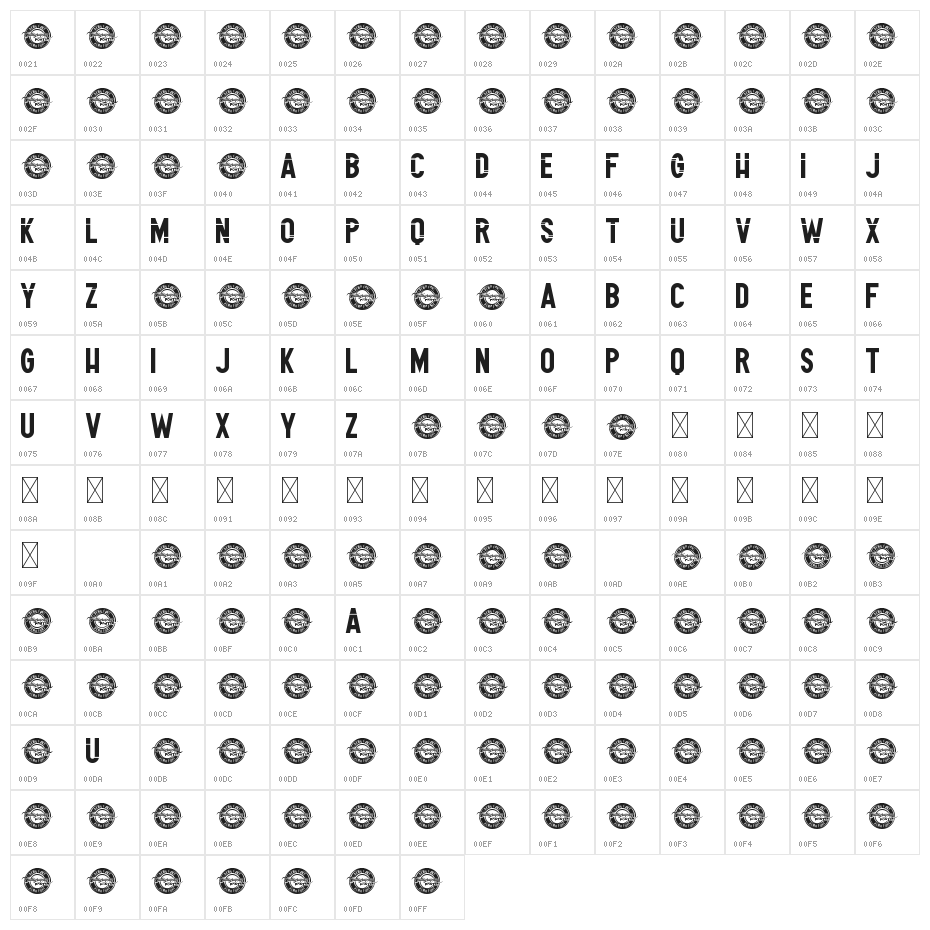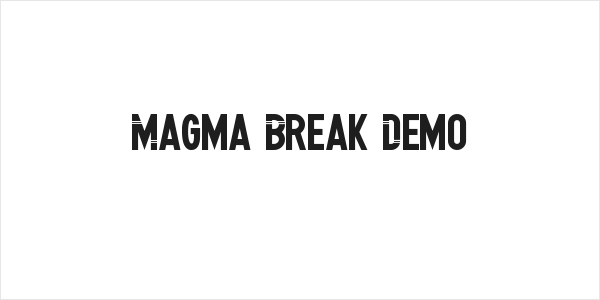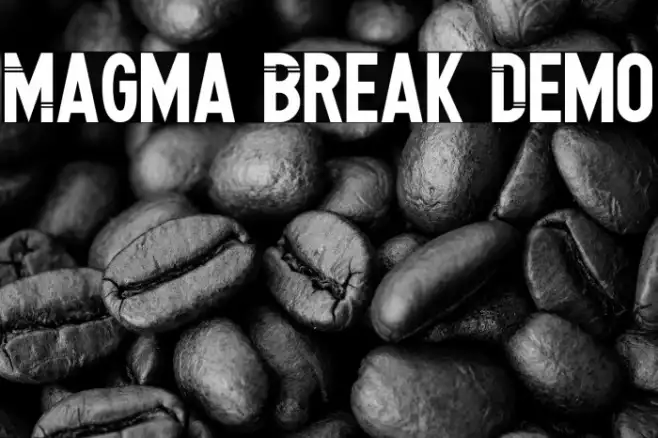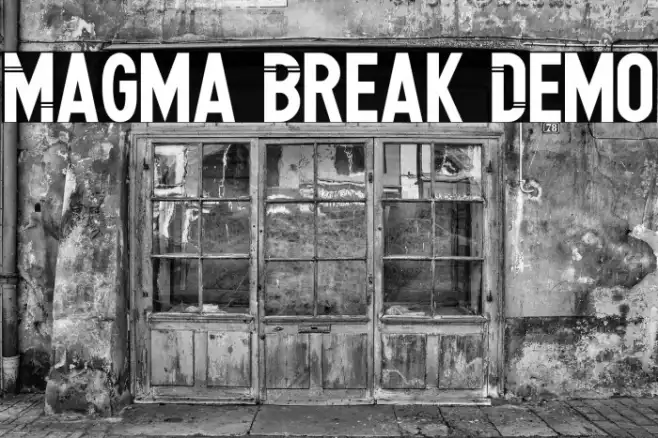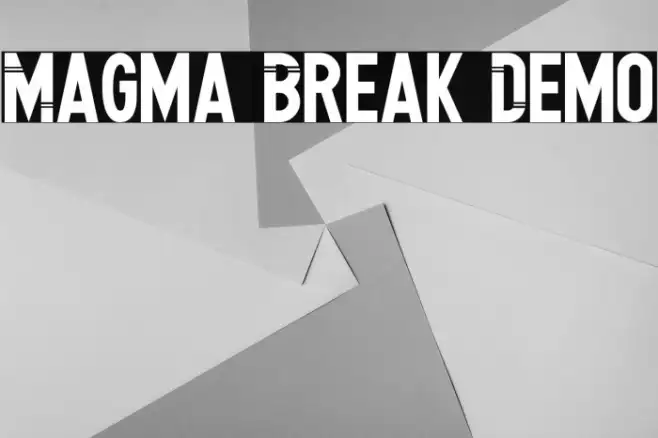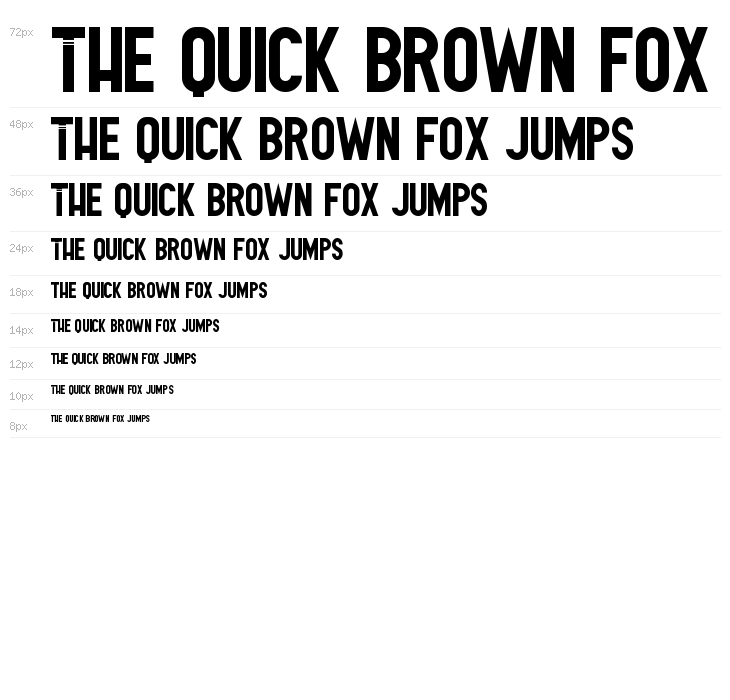
Magma Break Demo Font
Magma Break Demo Description
This font features a bold and striking design with a unique break in the middle of each character, creating a dynamic and modern appearance. The uppercase letters are prominent and well-defined, making them ideal for attention-grabbing headlines or titles. The font's geometric structure is consistent across all characters, providing a cohesive look. Its distinct style is both contemporary and versatile, suitable for various creative projects. The font's boldness and unique design elements make it stand out, offering a fresh take on traditional typography.